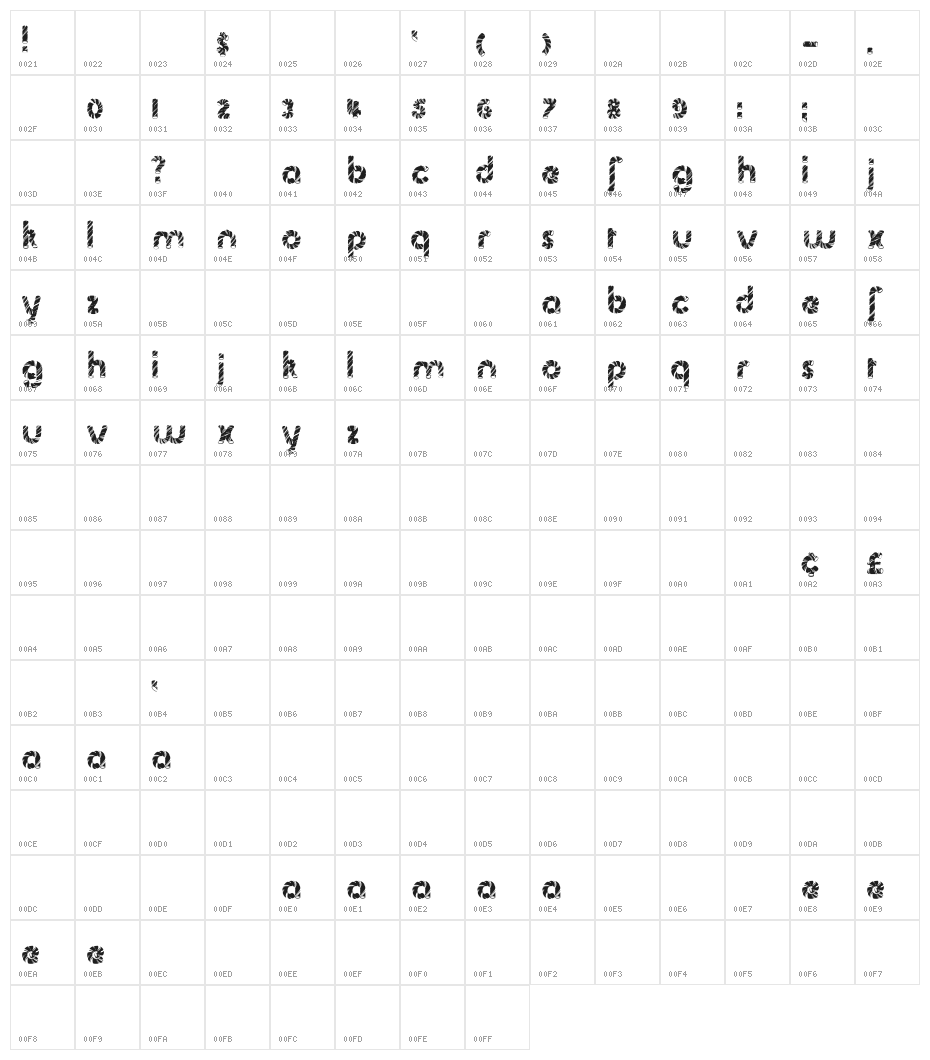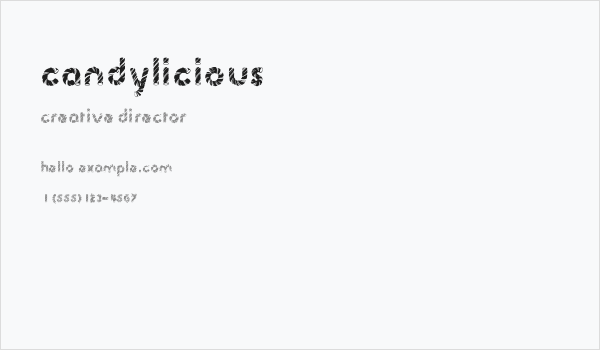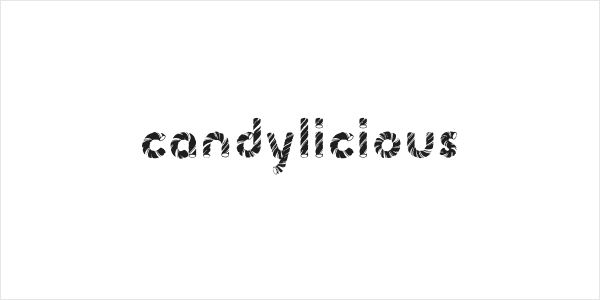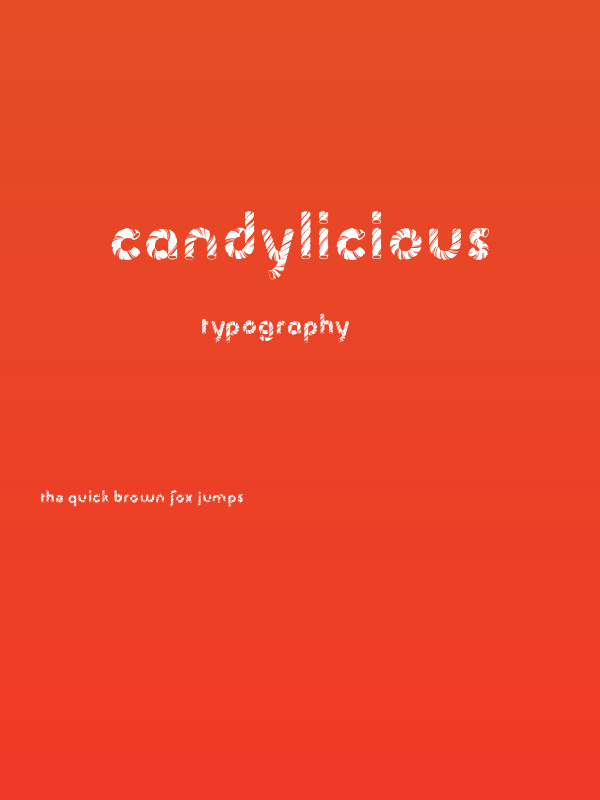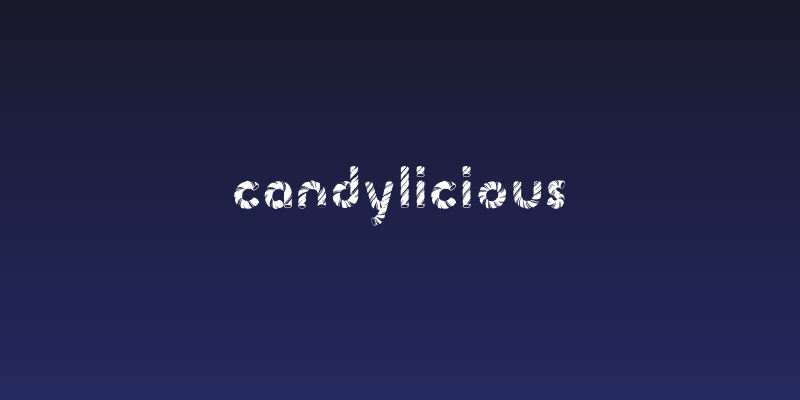
Candylicious Font
Candylicious Description
This playful and whimsical font features a candy cane-inspired design, with each character adorned with swirling stripes reminiscent of peppermint candies. The letters are bold and rounded, creating a fun and inviting appearance. The unique pattern within each character adds a festive and cheerful vibe, making it ideal for holiday-themed projects. The font maintains a consistent thickness throughout, ensuring readability while still delivering a decorative flair. Its distinctive style is sure to capture attention and evoke a sense of joy and celebration.
| Proposed Projects | Ideal for holiday cards, festive banners, children's party invitations, and playful branding. |